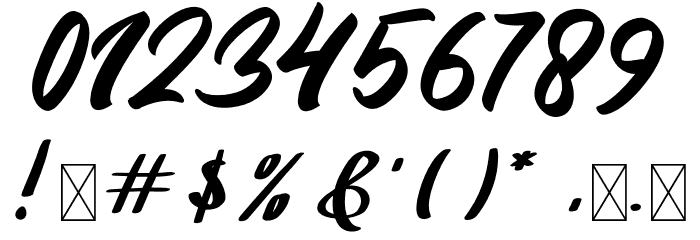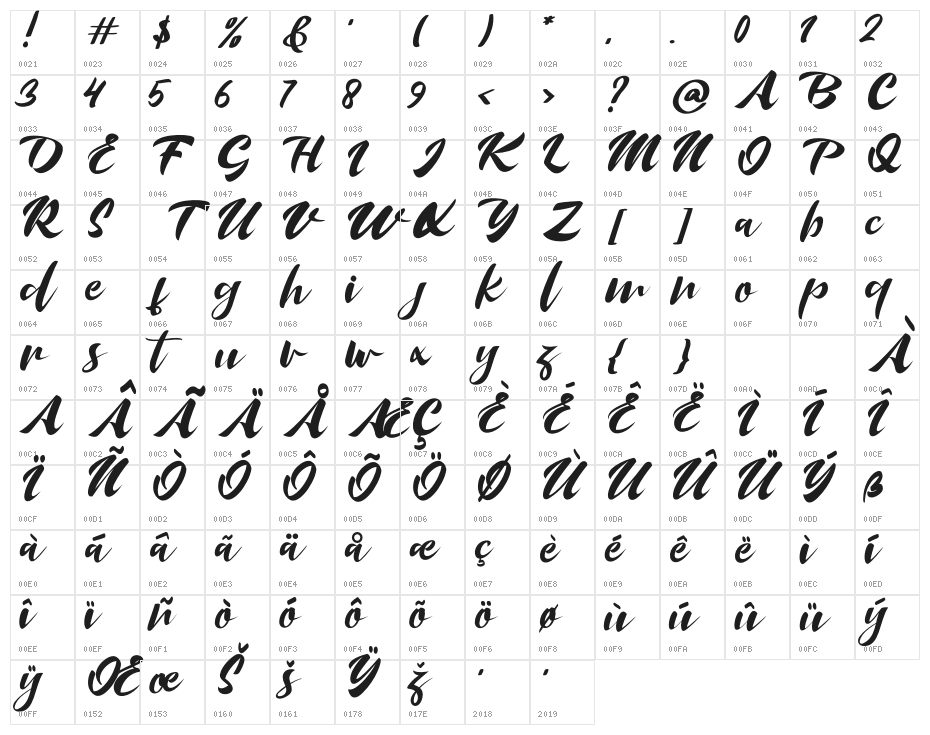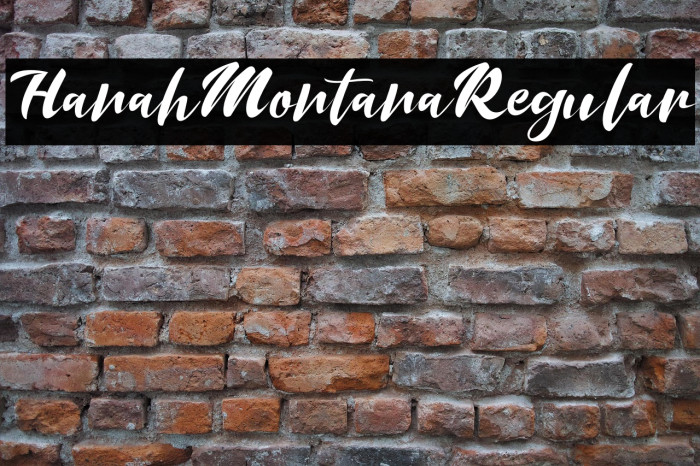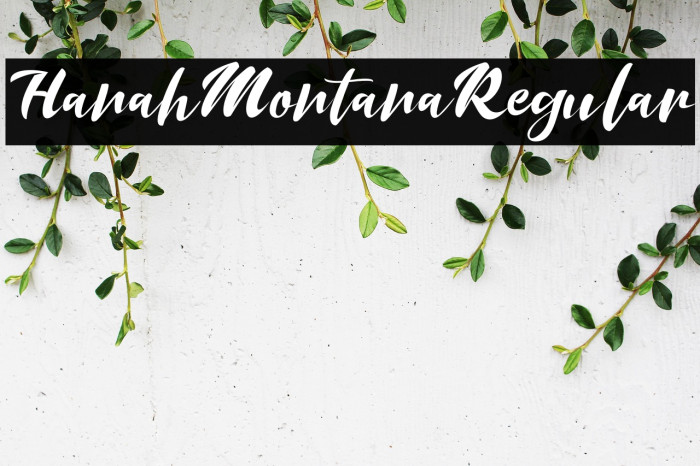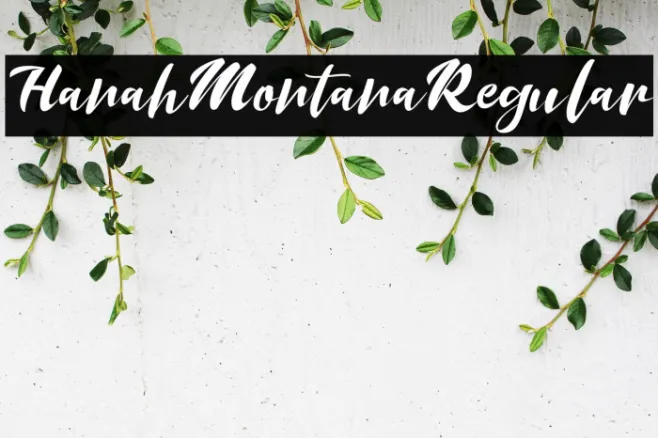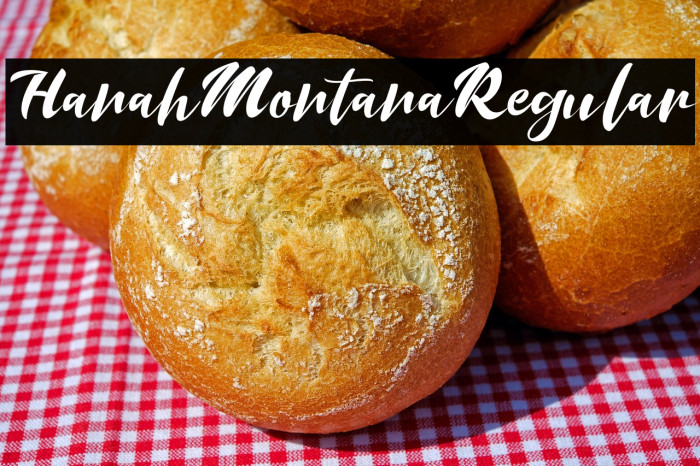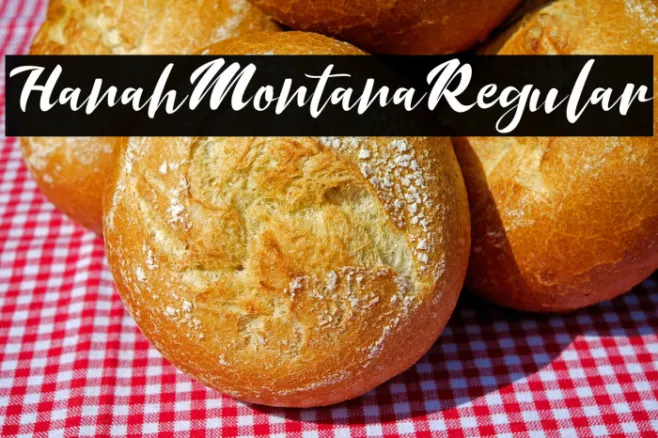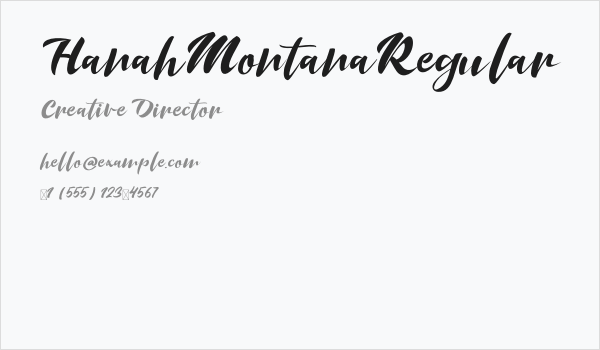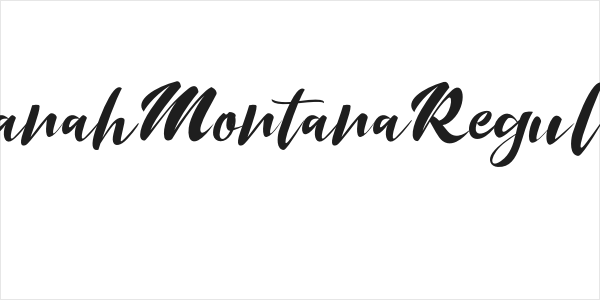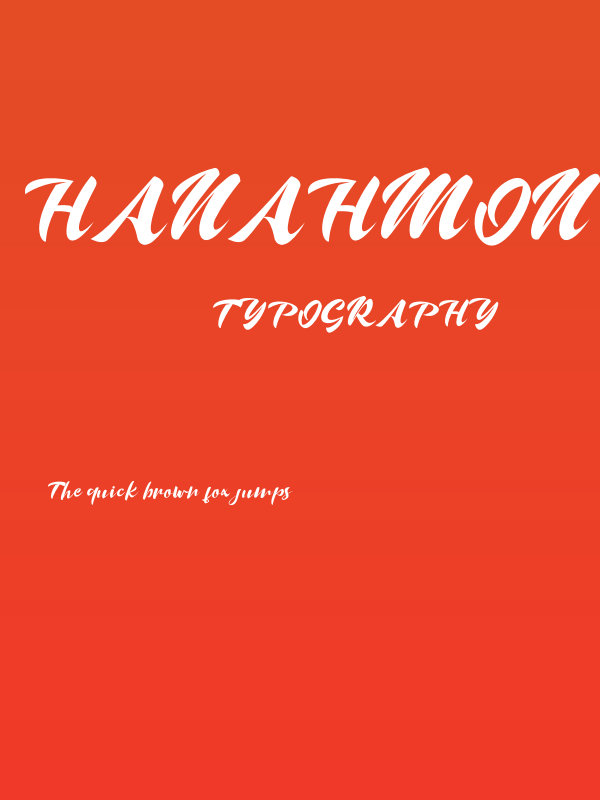
HanahMontanaRegular Font
HanahMontanaRegular Description
This font features a bold and expressive script style with a strong, flowing character. The letters are connected in a cursive manner, giving it a handwritten feel. The strokes are thick and consistent, providing a sense of elegance and flair. The uppercase letters are particularly striking, with sweeping curves and dramatic flourishes, while the lowercase letters maintain a smooth and cohesive appearance. The numerals and special characters are designed to match the overall aesthetic, ensuring a harmonious look across all text elements.